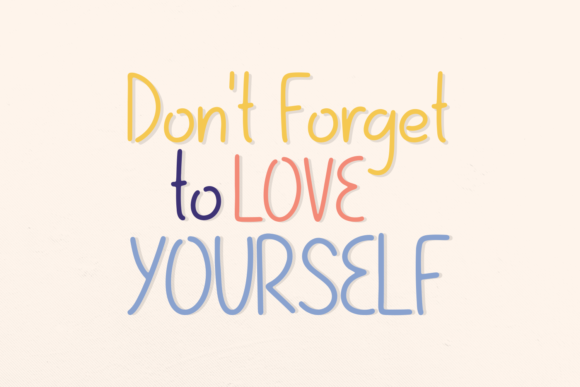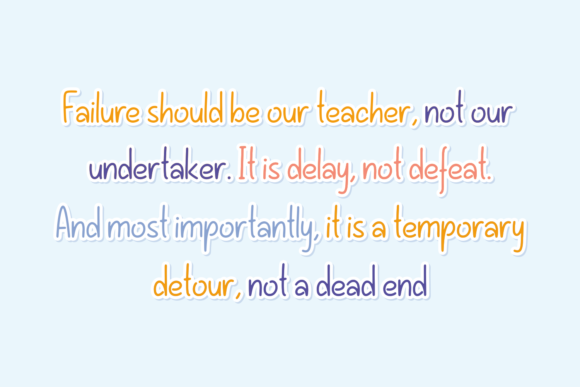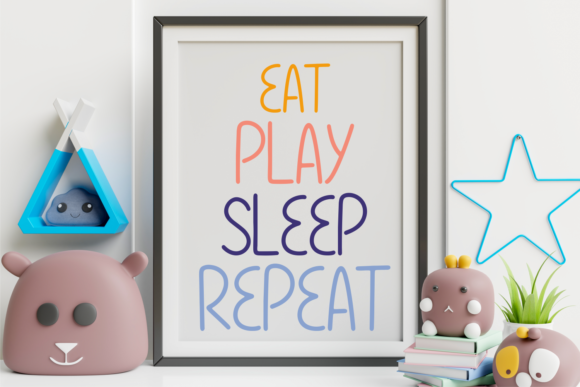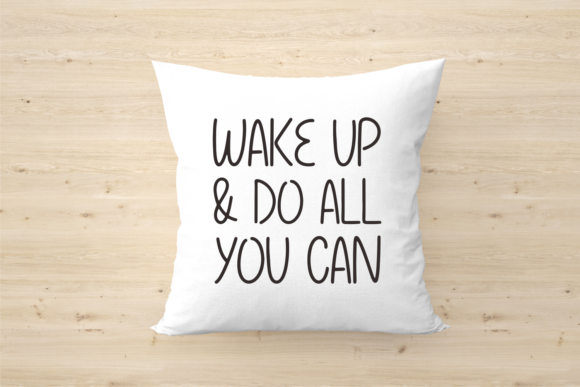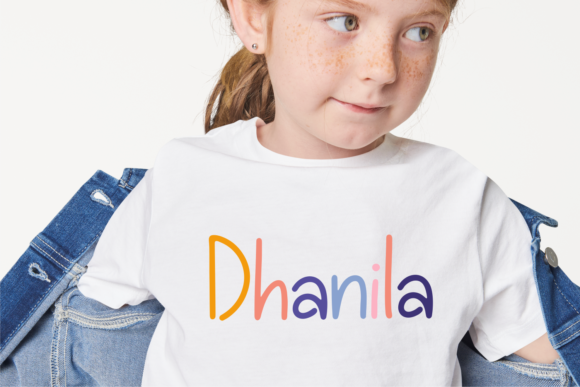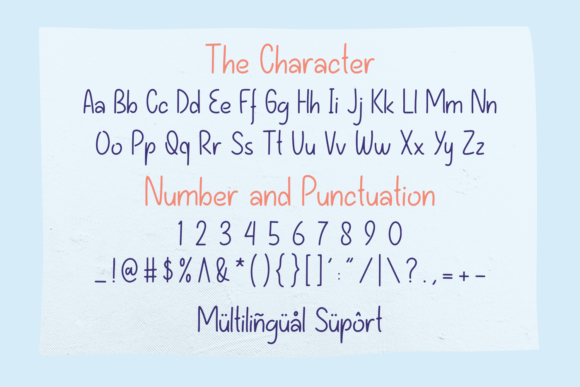
Craft Candy Font: Elevate Your Designs with Elegance and Sophistication
Are you looking for a font that can add a touch of elegance and sophistication to your designs? Look no further than the Craft Candy Font. This beautifully handcrafted font is designed to impress your audience and make your branding shine. With its unique and beautiful touch, Craft Candy is the perfect choice for designers and crafters who want to take their projects to the next level.
What Makes Craft Candy Font So Special?
Craft Candy is a fancy and elegant font that is perfect for a variety of design projects. Whether you’re working on headings, logos, ads, printed quotes, packaging, or even website or social media branding, this font is sure to make your projects dance. Every letter has a unique and beautiful touch, which will make your design come alive. The font is smooth and perfect for cut machines like Cricut and Silhouette, making it a great choice for crafters who love to work with vinyl, paper, and other materials.
Craft Candy Font is a versatile font that can be used by both designers and crafters. If you’re a designer, you can use this font to create stunning branding materials, such as logos, business cards, and brochures. If you’re a crafter, you can use this font to create beautiful projects, such as vinyl decals, iron-on designs, and paper crafts. The font is easy to use and can be installed on your computer or cutting machine, making it easy to access and use whenever you need it.
Key Features of Craft Candy Font
- Handcrafted with love: Each letter has been carefully crafted to ensure that it is unique and beautiful.
- Elegant and sophisticated: This font is perfect for designers and crafters who want to add a touch of elegance and sophistication to their projects.
- Smooth and perfect for cutting machines: Craft Candy is a smooth font that is perfect for cut machines like Cricut and Silhouette.
- Versatile: This font can be used for a variety of design projects, including headings, logos, ads, printed quotes, packaging, and more.
- Use it for headings and titles: Craft Candy is perfect for headings and titles, adding a touch of elegance and sophistication to your designs.
- Experiment with different colors and textures: This font looks great in a variety of colors and textures, so don’t be afraid to experiment and find the perfect combination for your project.
- Pair it with other fonts: Craft Candy can be paired with other fonts to create a unique and interesting design.